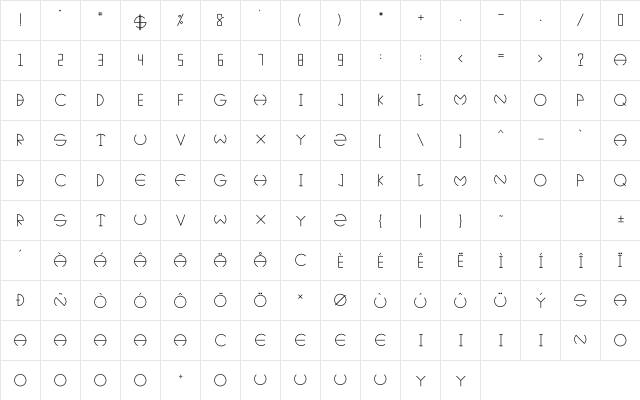
Technosia Regular
Design Context for Technosia Typeface
Technosia has a distinctly futuristic character, with geometric precision and clean angles that feel at home in technology, gaming, and sci-fi contexts.
Pro Tip: Use Technosia in combination with a neutral sans for body text. Let it define the brand voice in headlines while keeping reading comfortable elsewhere.